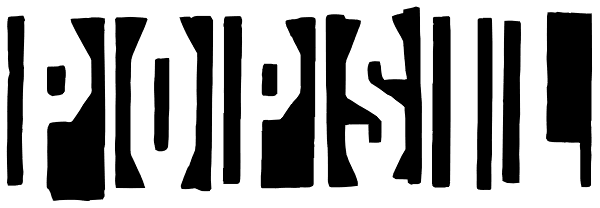
Popsil
Popsil is a strong stencil caps only font with no support for accents. Each cap letter is available in three design variations.
Popsil Fill
Popsil